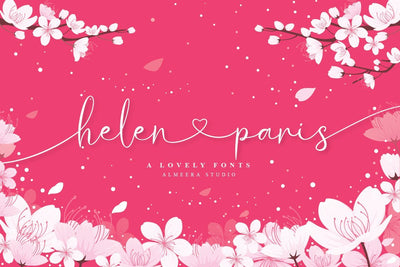
Helen Paris - Lovely Font
Helen Paris is a modern calligraphy font with handwritten, sophisticated flows. It is perfect for branding, wedding invites,signature and cards.
Helen Paris includes full set of lovely uppercase and lowercase letters, multilingual symbols, numerals, punctuation and ligatures.Also it includes:
- long lowercase beginning and ending swashes
- lowercase ending heart swashes, which serve to connect two words or letters (This is so perfect for invitations, monograms)
The font has smooth texture, so would be perfect for all types of printing techniques+you can do embroidery, laser cut, gold foil etc.